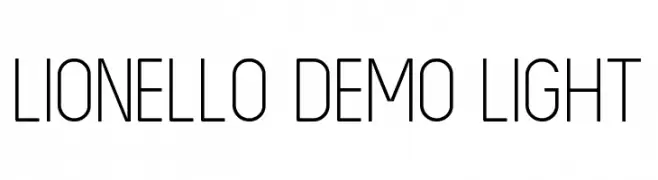
A bold, geometric sans-serif font with a modern and minimalistic design.
( Fonts by Impallari Type )
A modern, thin sans-serif font with geometric and minimalistic design.
( Fonts by La Tipomatika )
A modern, geometric sans-serif font with a clean and minimalistic style.
A modern, clean sans-serif font with consistent stroke width and minimalistic elegance.
A modern, geometric font with clean lines and minimalistic design.
A modern, geometric inline font with a bold and minimalistic design.
A modern, geometric sans-serif font with a sleek and minimalistic design.
A modern, double-line font with a geometric and minimalistic design.
A modern, minimalistic sans-serif font with clean lines and geometric shapes.
A clean, geometric font with a modern and minimalistic style.